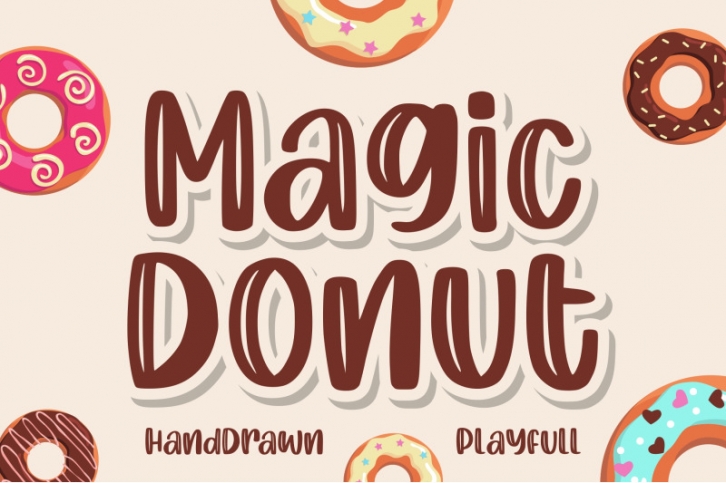
Introducing Magic Donut - a Handdrawn Font
It's smooth, it's funny, it's fun, and it's very nice: it's Magic Donut a Handdrawn fonts with many possible combinations.
Magic Donut is the perfect font for all your fun designs. The main font file is equipped with ordinary characters (A-Z, a-z, 0-9, ligature), as well as more than 300+ glyphs to support most Latin-based languages.
Everything is made with the same brush, and everything is the same size as Magic Donut, so you can be sure they will work well together!
It is suitable for you to use in making t-shirt design, quote, label, packaging, logo type, or long writing. Because we have compiled kerning and matrices that are tailored to your needs.
Magic Donut feature:
- Ligature Support
- More than 300+ glyphs